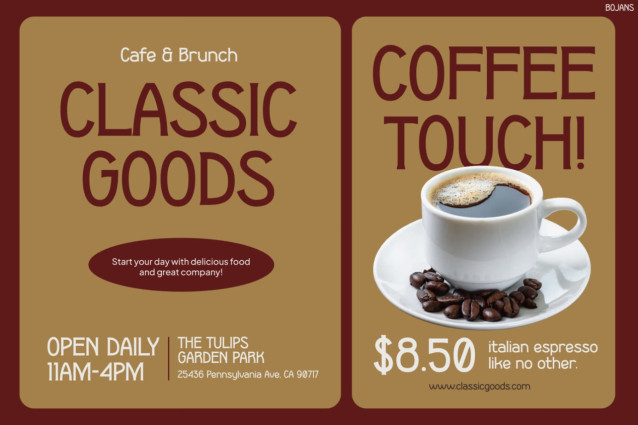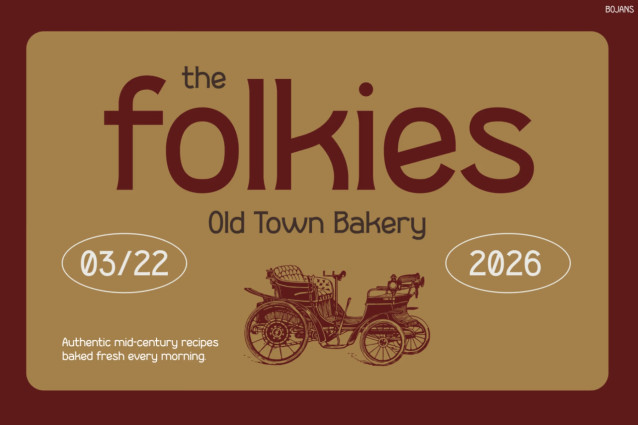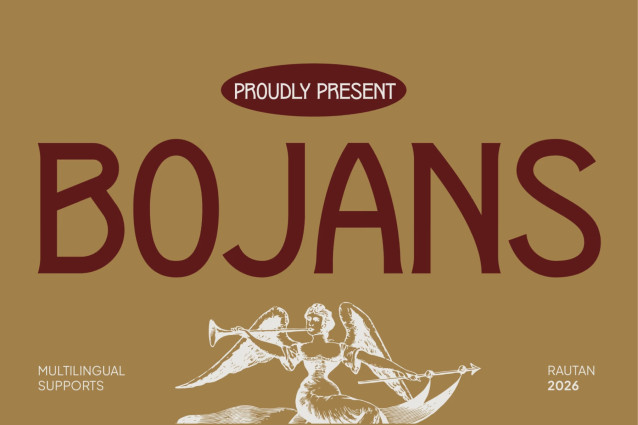
BOJANS – Vintage Café & Classic Display Font
Vintage Font BOJANS brings warm retro character to modern designs. Specifically, it features elegant letterforms, balanced proportions, and a nostalgic visual mood. The style draws inspiration from classic café signs, bakery labels, and coffee packaging. Additionally, it nods to traditional European-inspired branding. As a result, it creates a distinctive look with ease.
Moreover, its clean structure keeps headlines readable. At the same time, it gives every layout a memorable vintage touch. On top of that, BOJANS comes with Multilingual Support for 67 Languages. Therefore, you can design for a wider range of audiences.